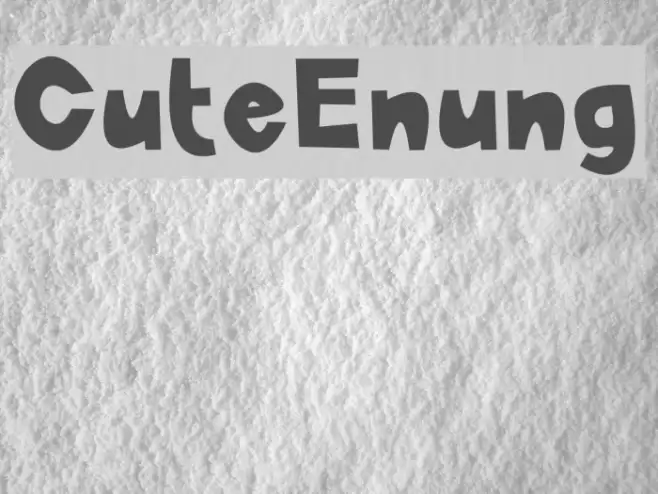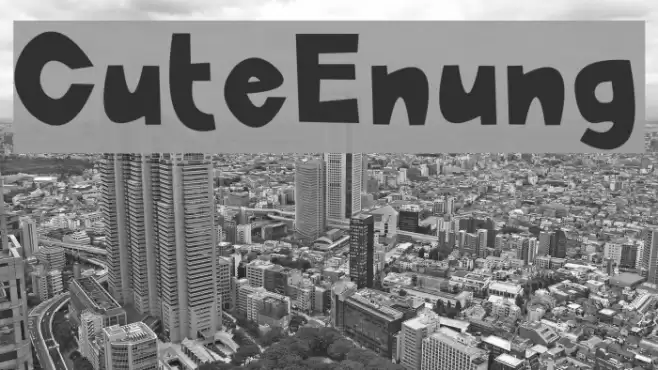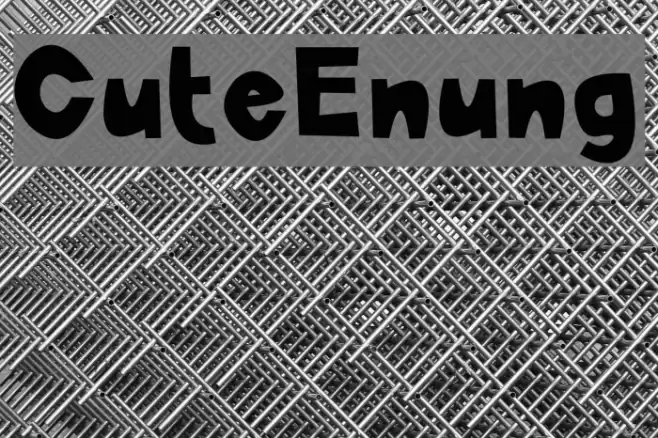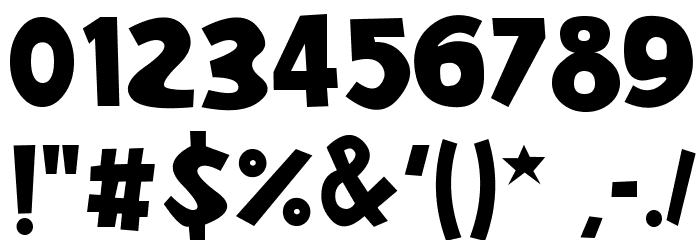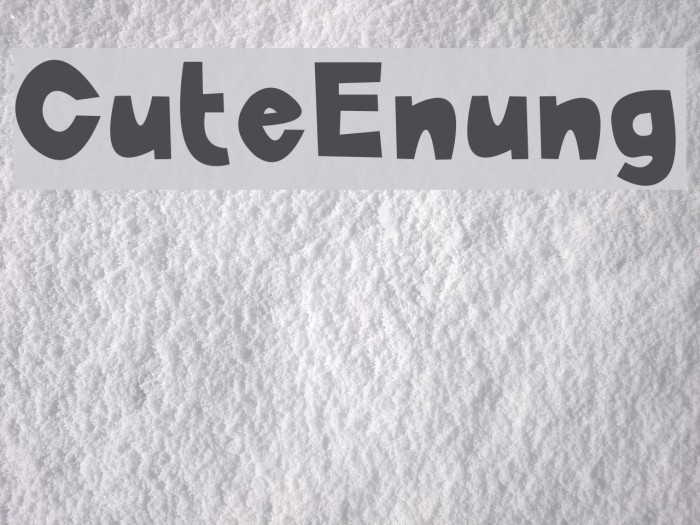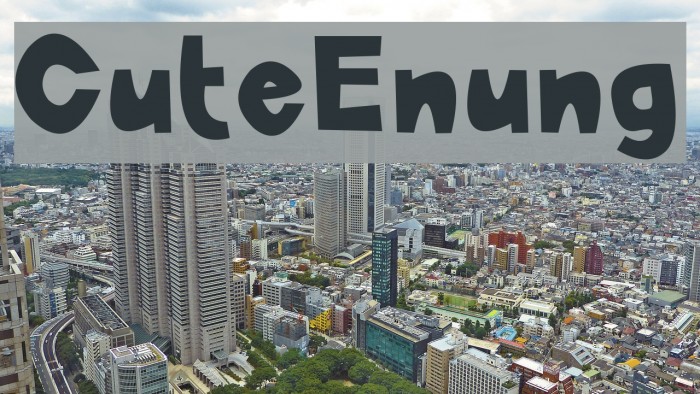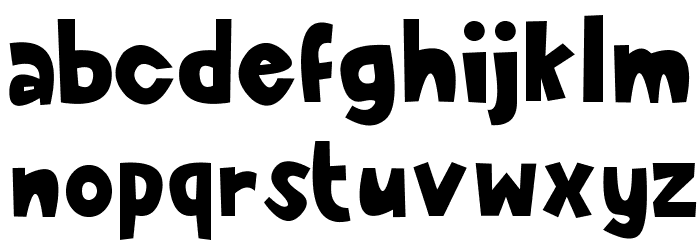
CuteEnung Font
CuteEnung Description
This font features a playful and whimsical design, characterized by its bold and rounded letterforms. The uppercase and lowercase letters exhibit a consistent thickness, contributing to a cohesive appearance. The characters have a slightly irregular shape, adding to the font's charm and informal style. The numerals and special characters maintain the same playful aesthetic, making it suitable for a variety of creative applications. Its boldness ensures visibility and impact, while the rounded edges provide a friendly and approachable feel.
A playful, bold, and rounded font with a whimsical style from Uncategorized fonts.
- Proposed Projects: Ideal for children's books, playful branding, greeting cards, and casual invitations.
- Overall Style: Playful